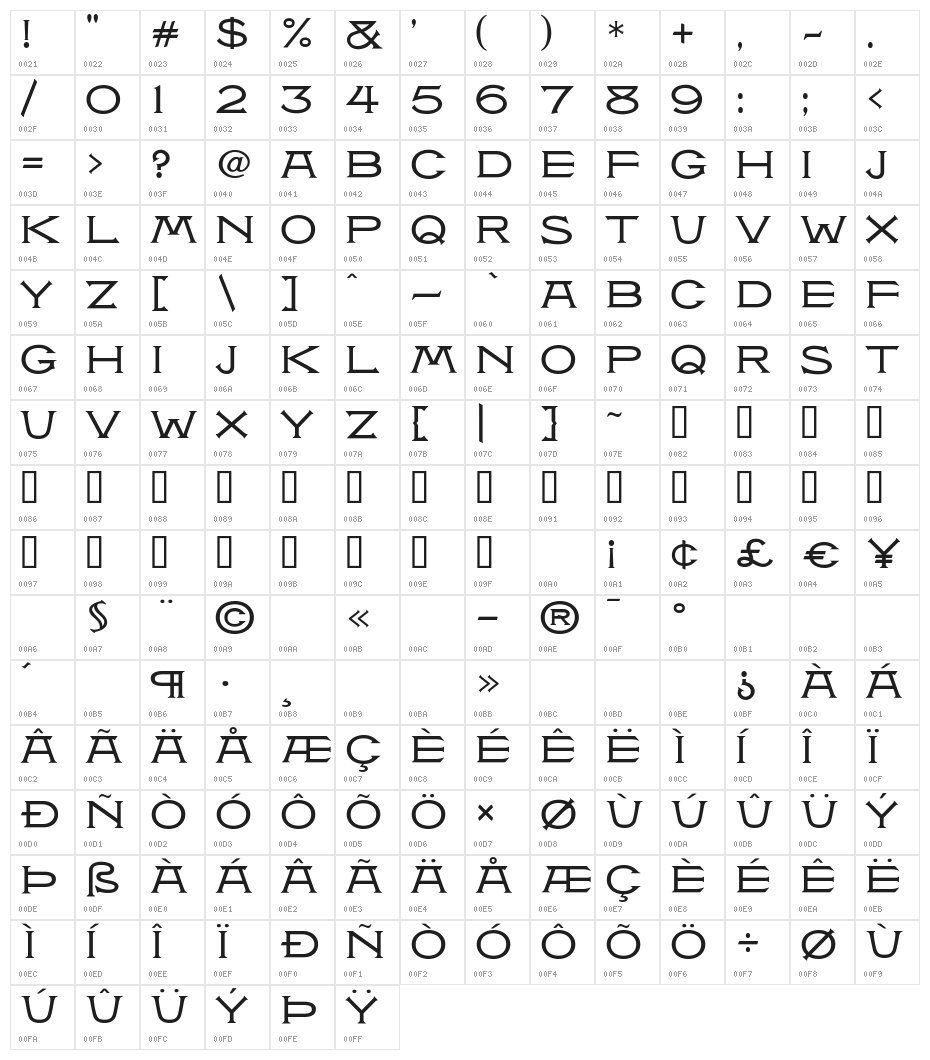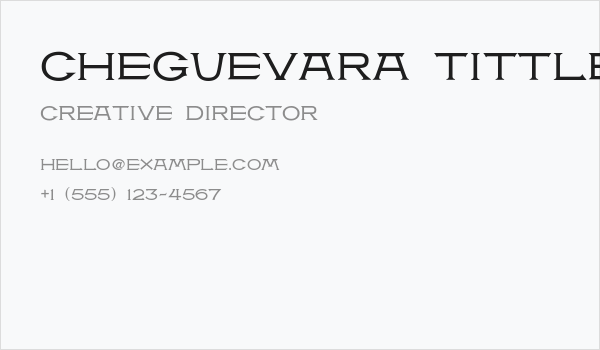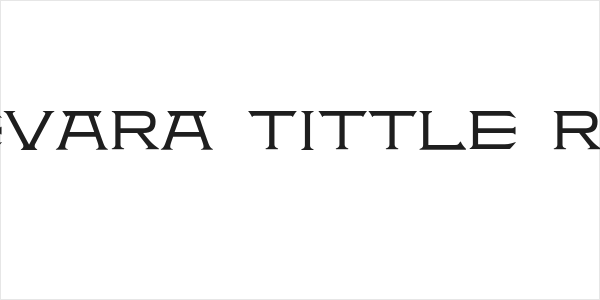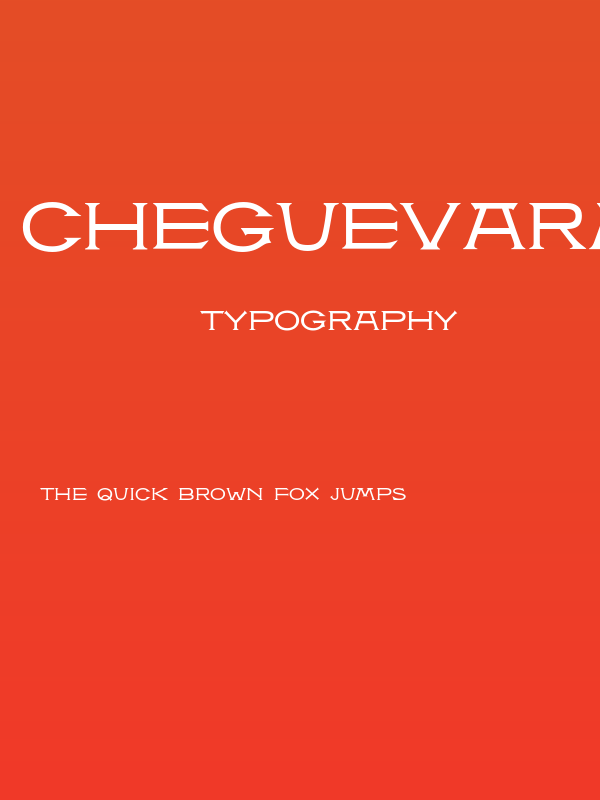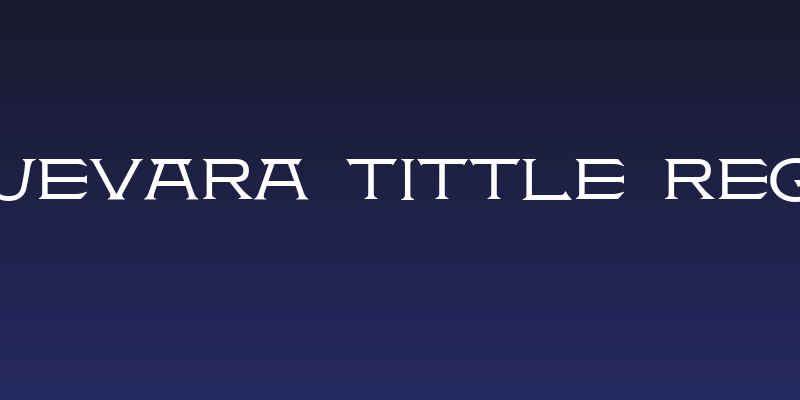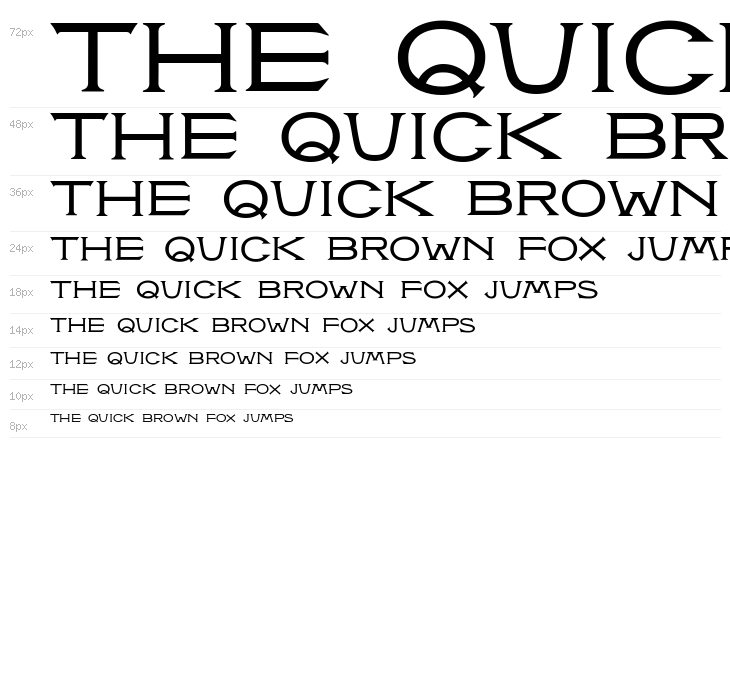
CheGuevara Tittle Regular Font
CheGuevara Tittle Regular Description
This font features a bold and striking design with angular and geometric elements. The uppercase letters are characterized by sharp angles and unique cuts, giving them a modern and edgy appearance. The lowercase letters maintain a consistent style, complementing the uppercase with similar angular features. The numerals are distinct and clear, following the same geometric theme. Special characters are well-integrated, maintaining the overall aesthetic. This font's unique style makes it stand out, suitable for projects that require a bold and modern look.
| Proposed Projects | Ideal for branding, posters, headlines, and any design requiring a modern and edgy aesthetic. |